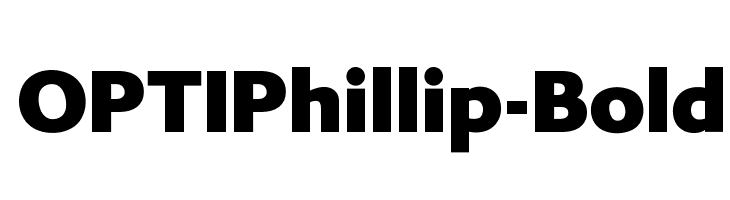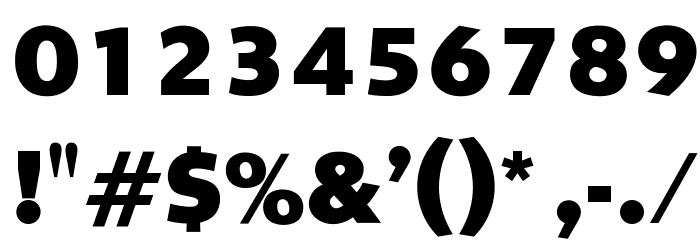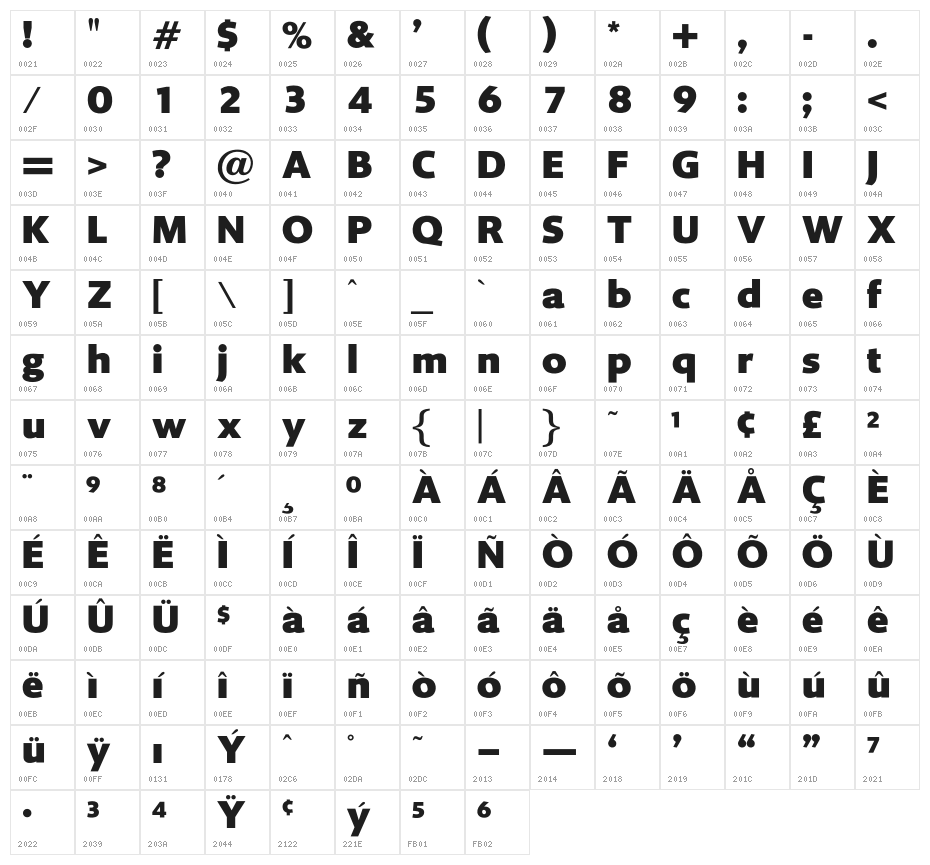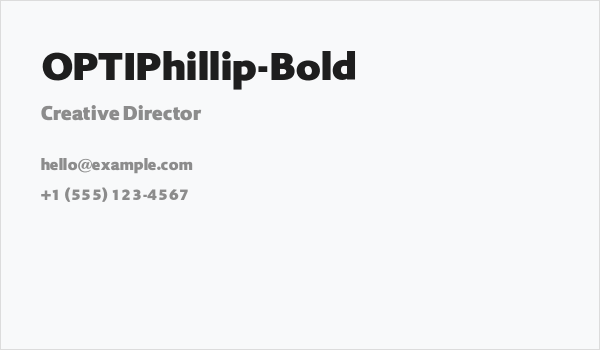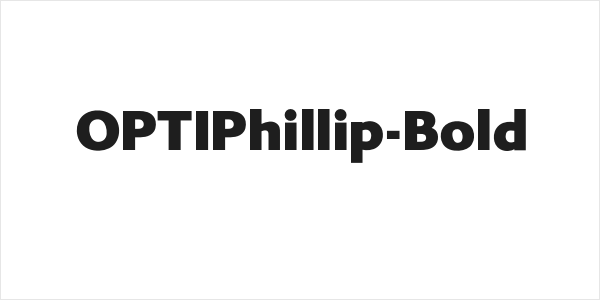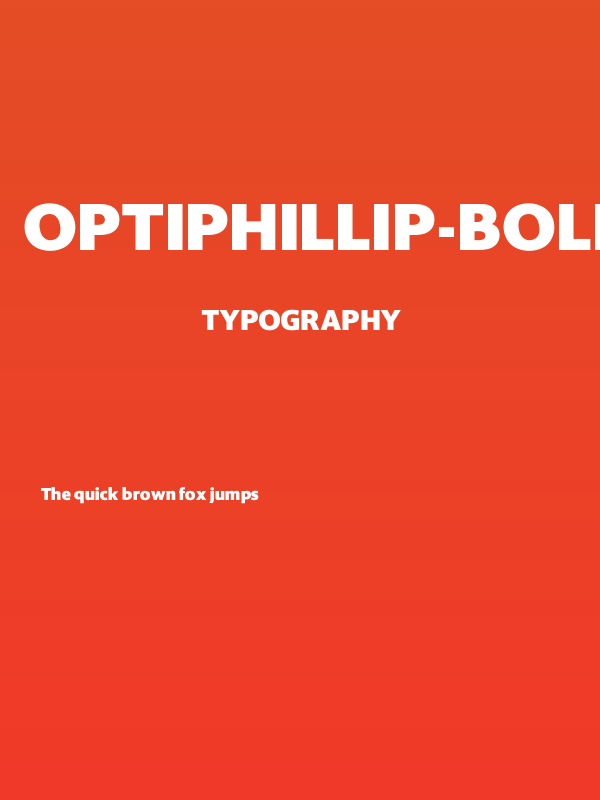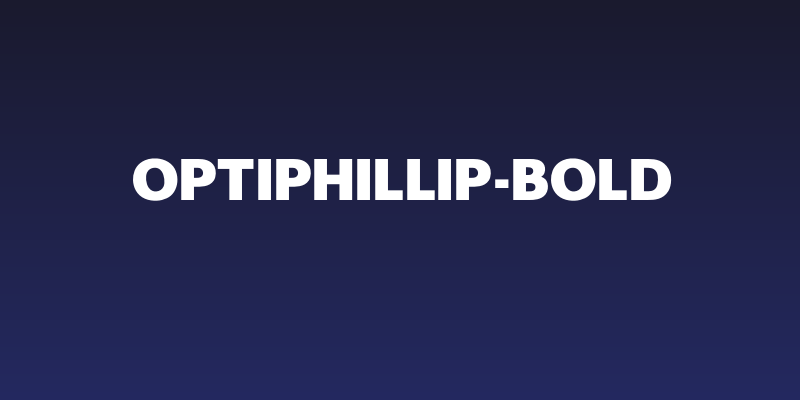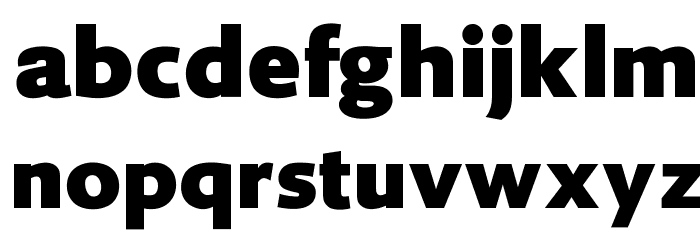
OPTIPhillip-Bold Font
OPTIPhillip-Bold Description
This bold typeface features strong, thick strokes that convey a sense of power and confidence. The characters are well-defined with a modern aesthetic, making it suitable for impactful headlines and attention-grabbing designs. The uppercase and lowercase letters maintain a consistent weight, ensuring readability and balance. The numerals and special characters are designed with the same boldness, providing a cohesive look across all text elements. The font's clean lines and lack of serifs contribute to its contemporary style, while the slightly rounded edges add a touch of friendliness.
| Proposed Projects | Ideal for branding, advertising, posters, and any design requiring a strong visual impact. |